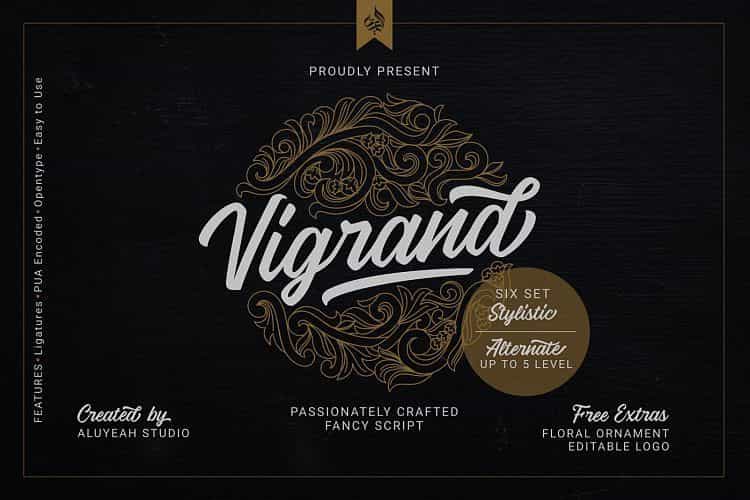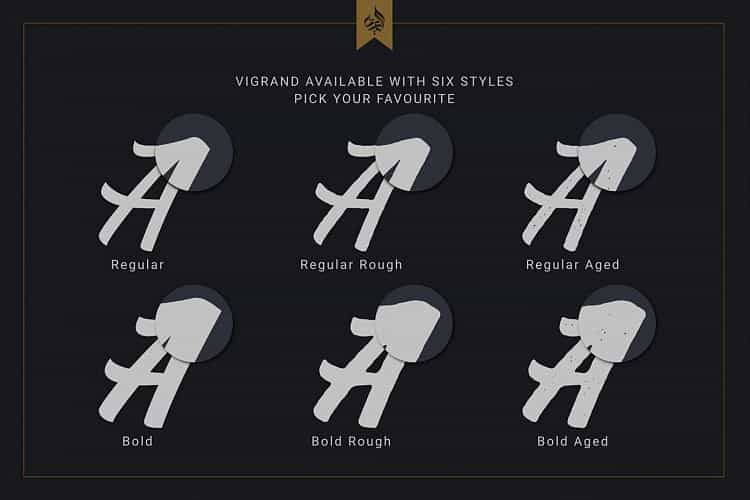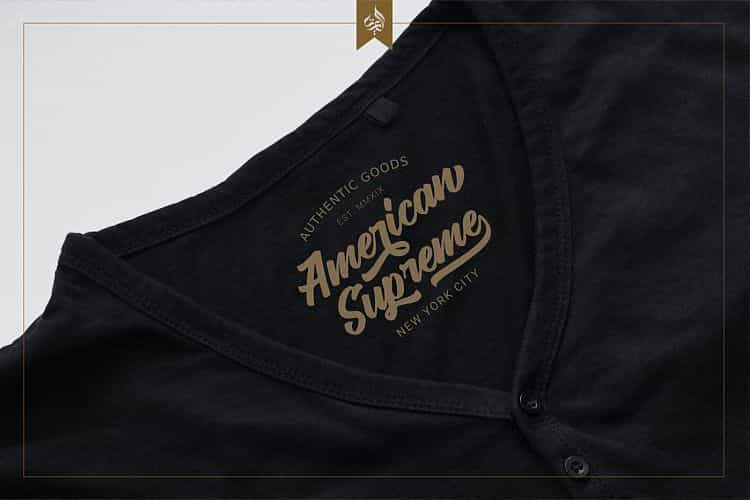
Introducing Vigrand Font. Vigrand is an amazing handwritten font which has a vintage look. Apply it to a design project to make it stand out among others. The 6 styles are stylistic, regular, regular rough, regular aged, bold, bold rough and bold aged. Up to 5 level alternatives.